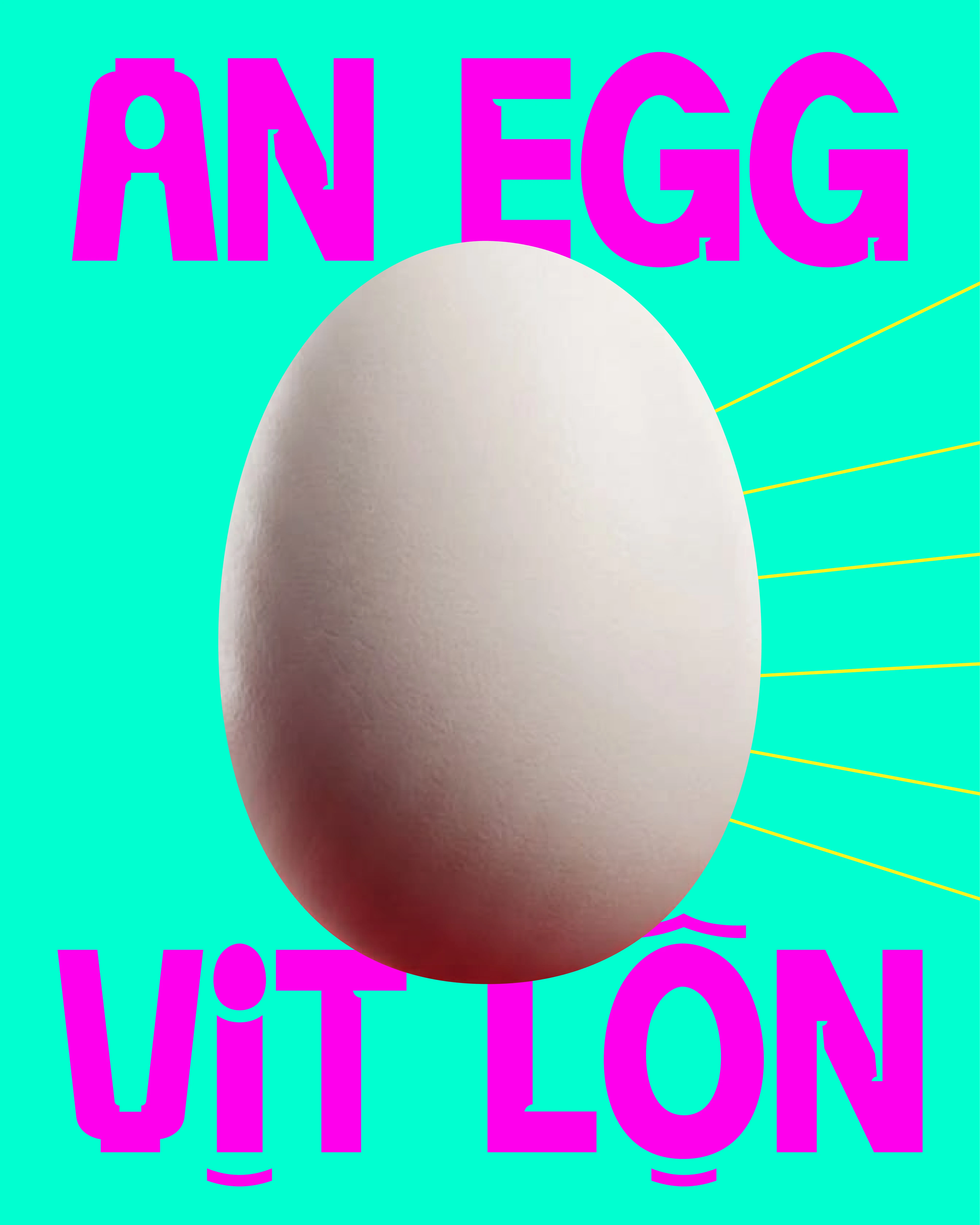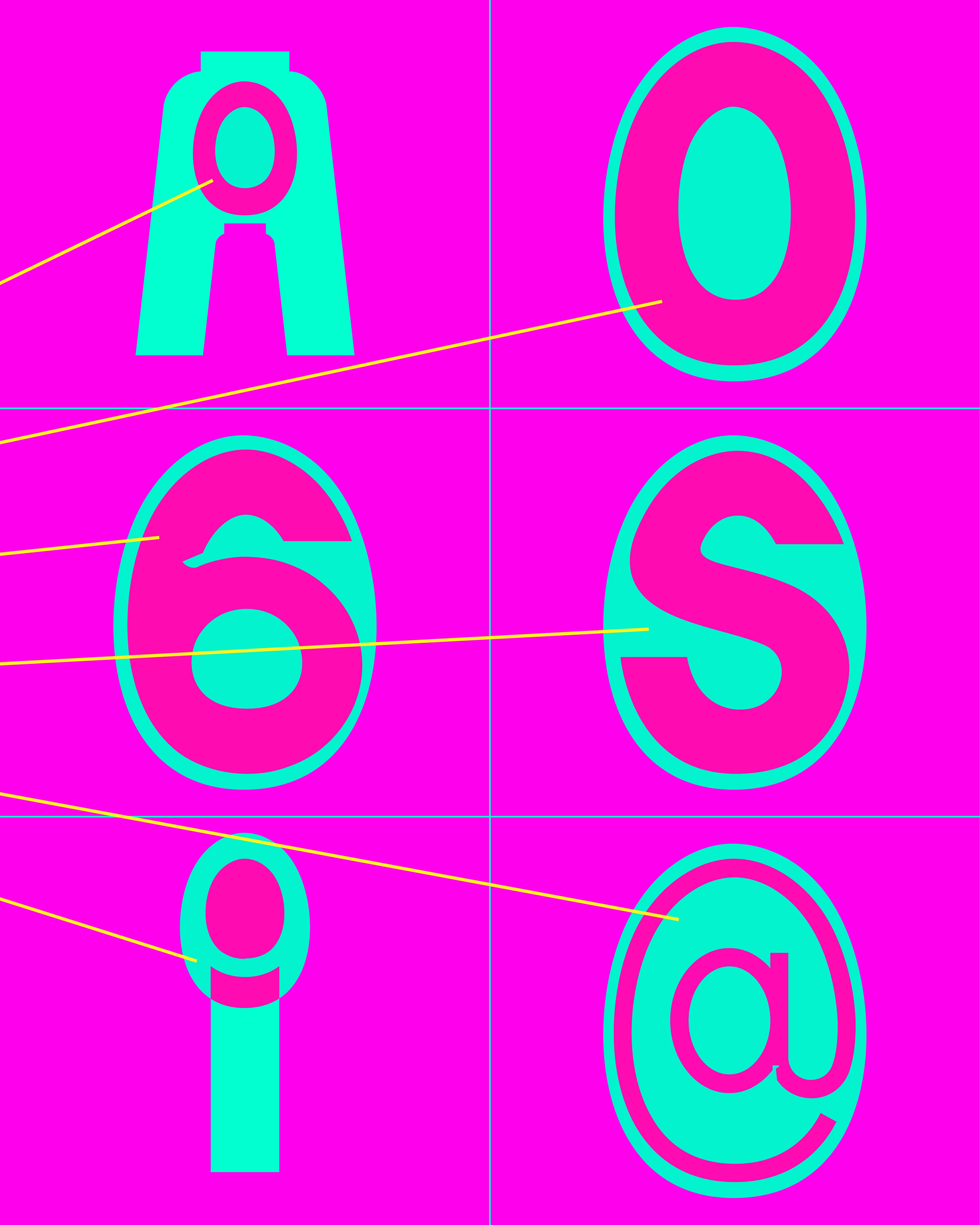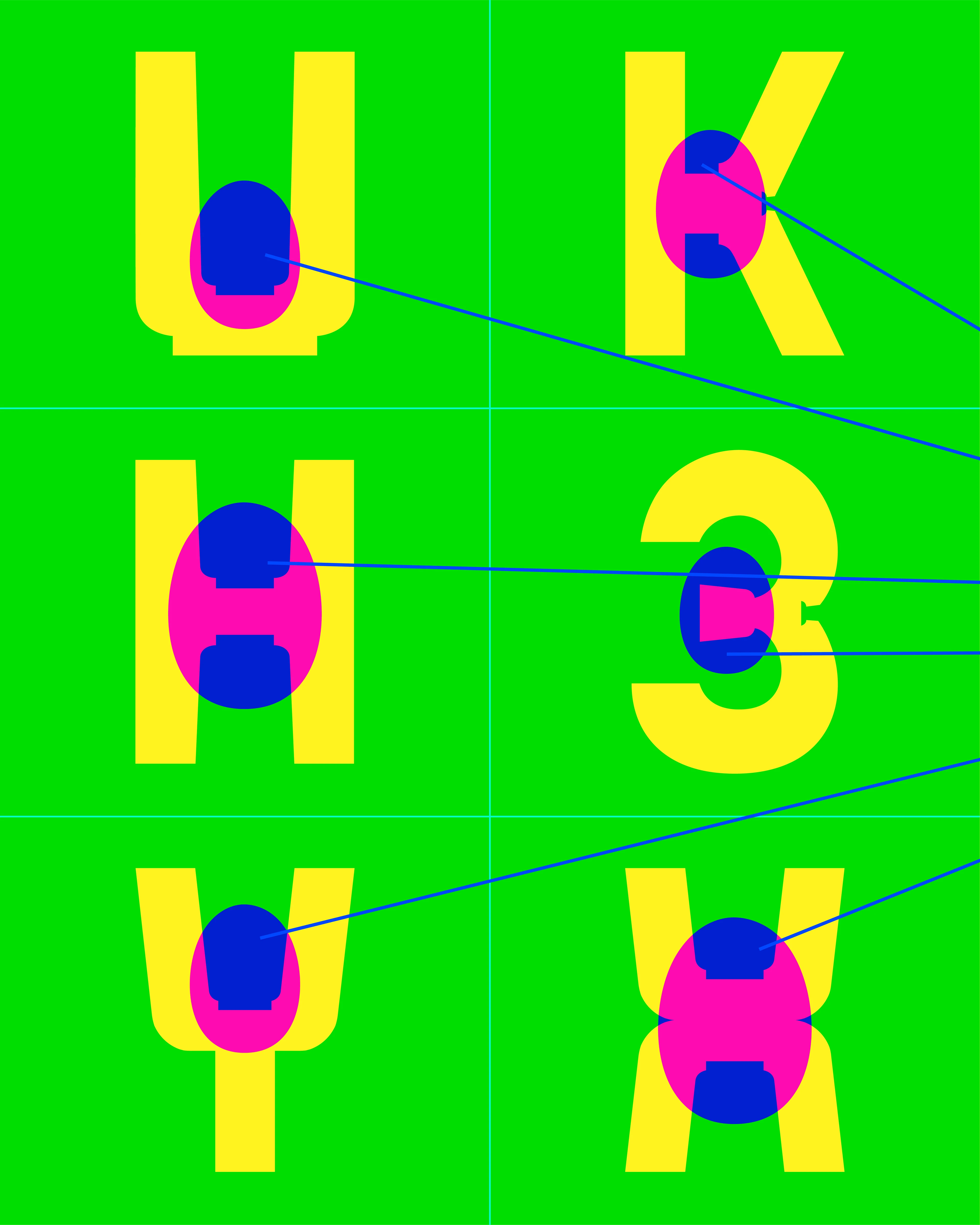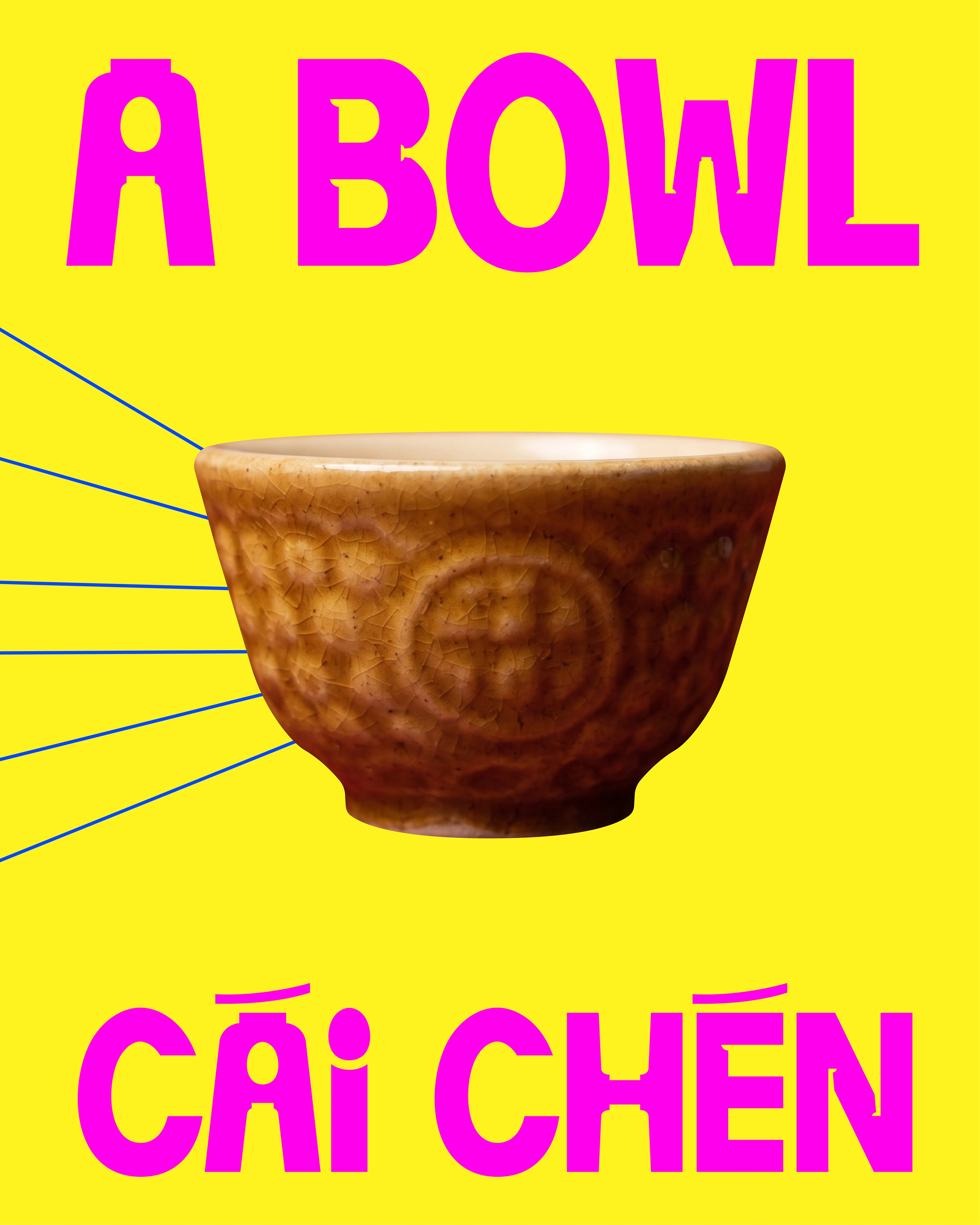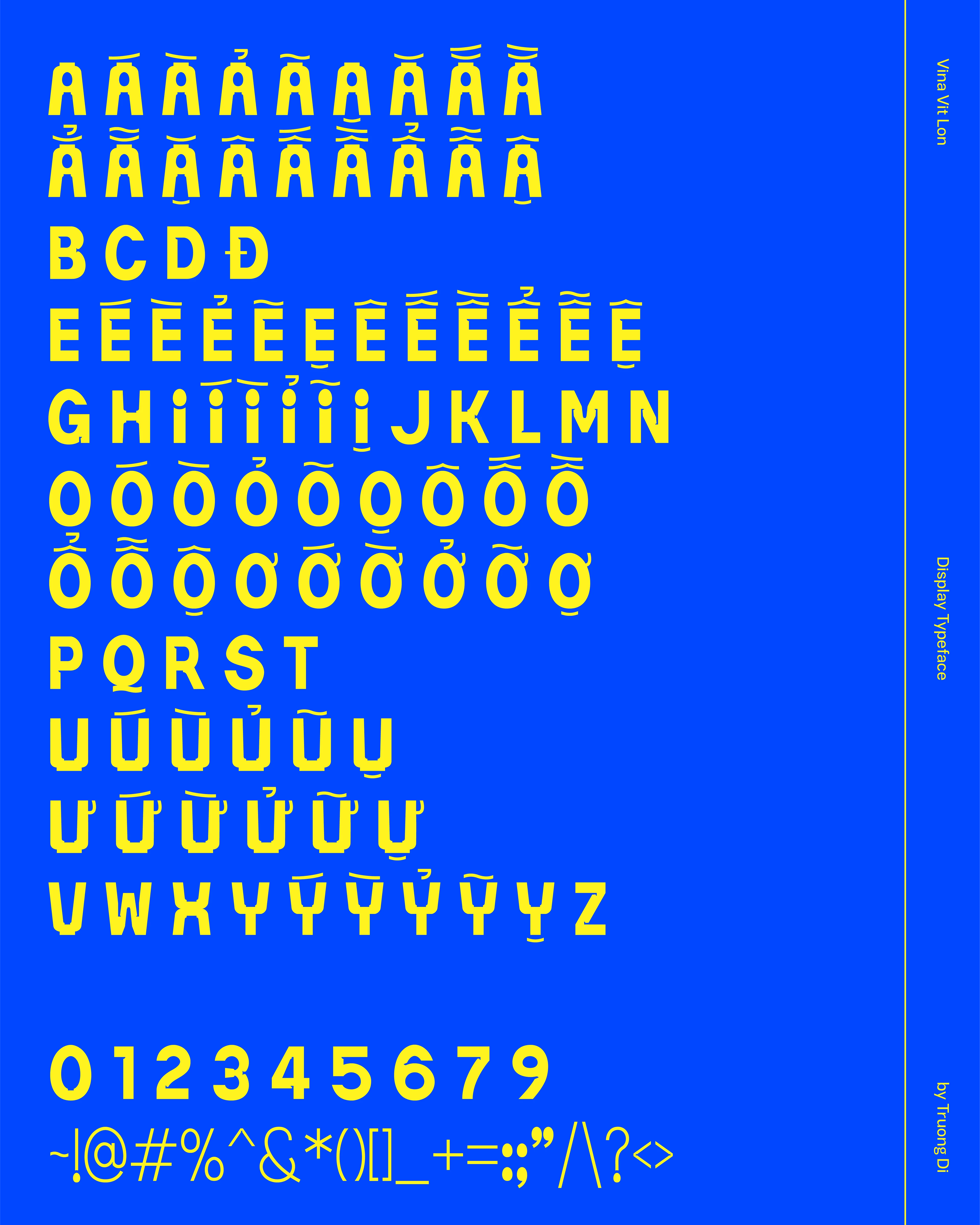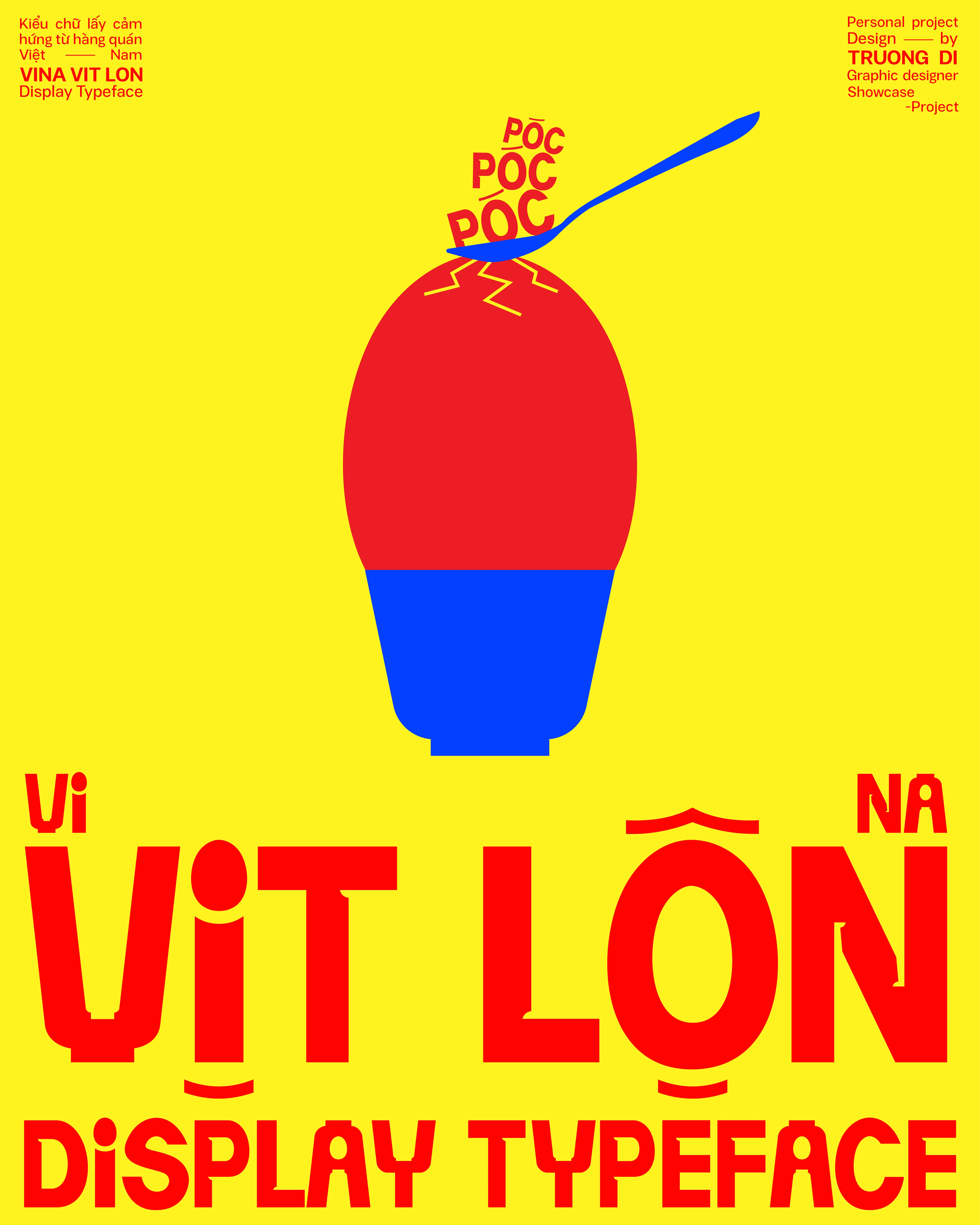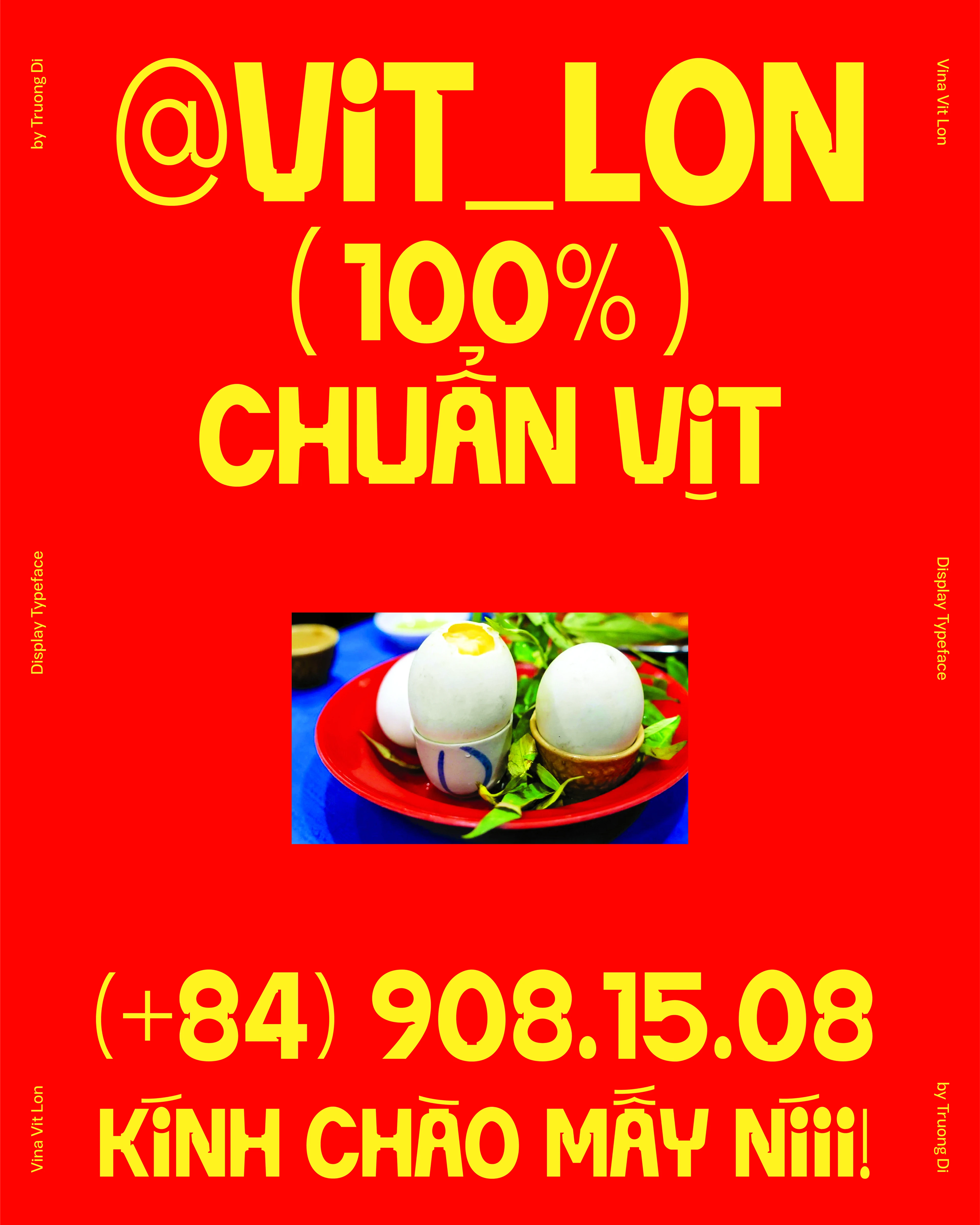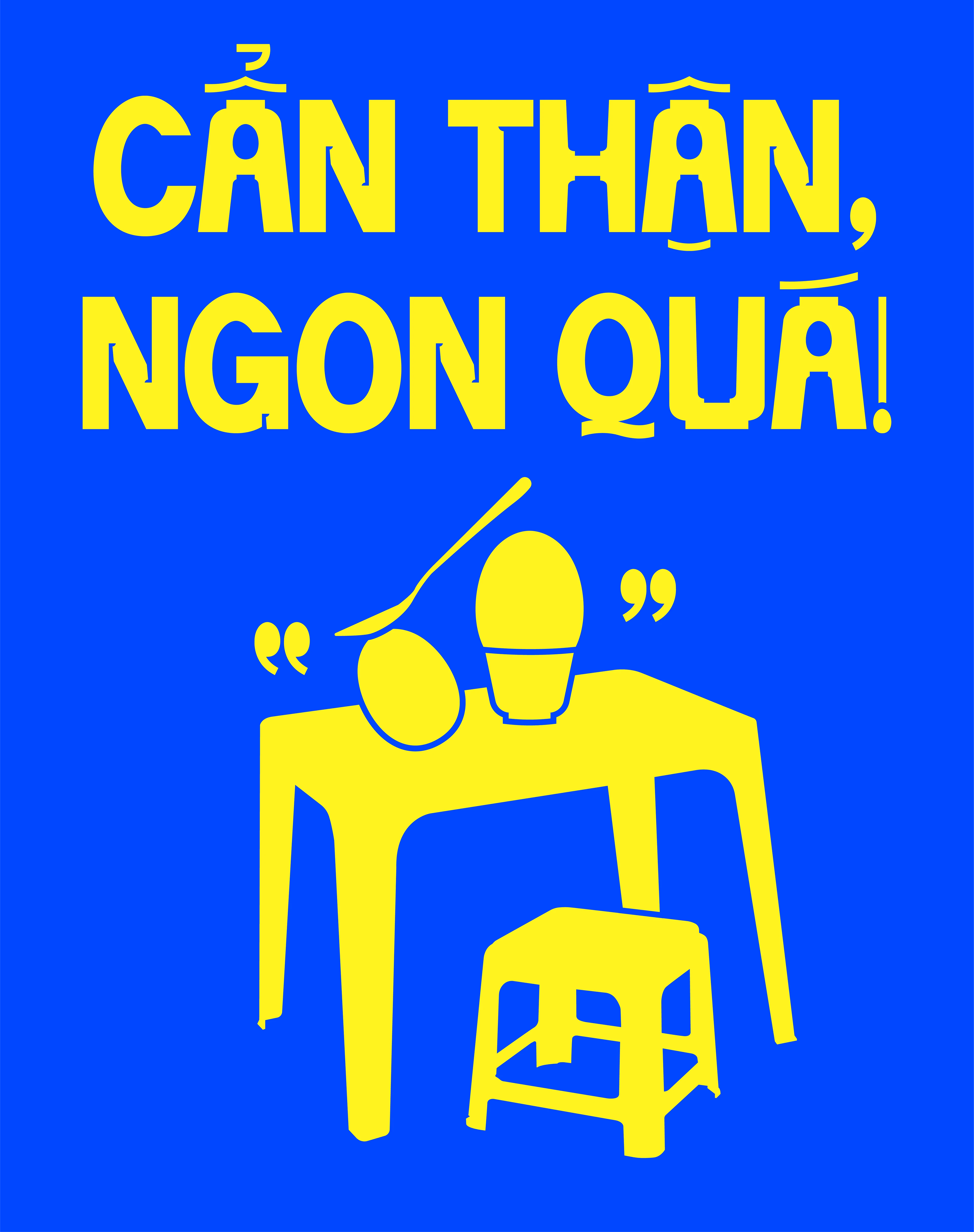
Vina Vit Lon: A Bold Display Typeface Rooted in Vietnamese Street Culture
Vina Vịt Lộn: A Street Culture-Inspired Typeface by Truong Di As modern design relies more and more on AI, local eatery signage has been losing some of that rustic, authentic charm. To bring back the soul of those familiar street corners, designer www.behance.net/truongdi191 created Vina Vịt Lộn, a display font packed with local personality.
Inspired by a Classic Late-Night Snack This project draws direct inspiration from balut (hột vịt lộn), a beloved street food staple in Vietnam. Vina Vịt Lộn sits right at the intersection of pop sign art and street food culture, giving local shops a fresh, polished look while staying true to their down-to-earth roots.
Bold Visual Characteristics This display typeface makes a serious statement with its standout features:
• Bold & Solid Structure: Chunky geometric shapes deliver instant visual impact that grabs attention right away.
• Raw & Audacious Strokes: Thick, hearty lines mirror the classic “can’t-miss-it” vibe of roadside signs.
• Super Versatile: Perfect for headlines, posters, streetwear branding, food concepts, or anything celebrating Vietnamese culture.
Vina Vịt Lộn: Phông chữ đậm chất văn hóa vỉa hè của Trương Di
Trong bối cảnh thiết kế hiện đại ngày càng phụ thuộc vào AI khiến nhiều bảng hiệu quán ăn dần mất đi cái chất mộc mạc địa phương, designer www.behance.net/truongdi191 đã ra mắt bộ phông chữ hiển thị Vina Vịt Lộn nhằm tìm lại linh hồn cho những góc phố quen thuộc.
Cảm hứng từ món ăn đêm bình dân
Dự án lấy cảm hứng trực tiếp từ hột vịt lộn — món ăn vỉa hè quen thuộc của người Việt. Vina Vịt Lộn ra đời như một điểm giao thoa giữa nghệ thuật bảng hiệu bình dân và nét văn hóa ẩm thực đường phố, giúp các hàng quán khoác lên mình diện mạo mới chỉn chu, thân thiện hơn mà vẫn giữ trọn sự gần gũi chân thật.
Đặc tính thị giác nổi bật
Bộ Display Typeface này được định hình với phong cách vô cùng mạnh mẽ:
• Cấu trúc to bản & vững chãi: Thiết kế sở hữu các hình khối hình học chắc nịch, tạo hiệu ứng thị giác ấn tượng ngay từ cái nhìn đầu tiên.
• Nét chữ thô ráp & bạo dạn: Đường nét dày dặn đúng chuẩn “nhìn là thấy” của các bảng hiệu lề đường.
• Ứng dụng linh hoạt: Rất phù hợp cho Headline, thiết kế Poster, nhận diện thương hiệu mang phong cách streetwear, ẩm thực hoặc văn hóa Việt Nam.